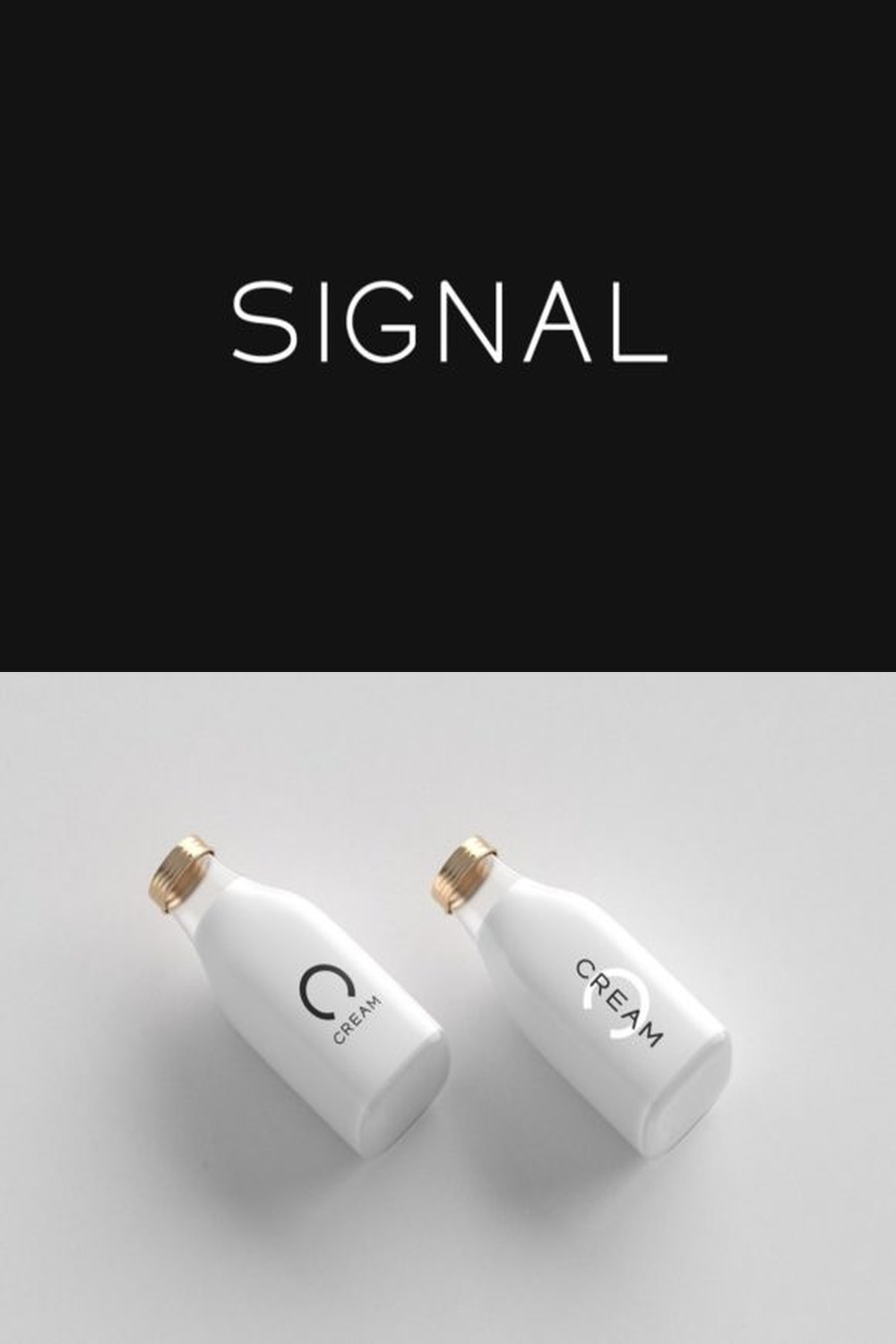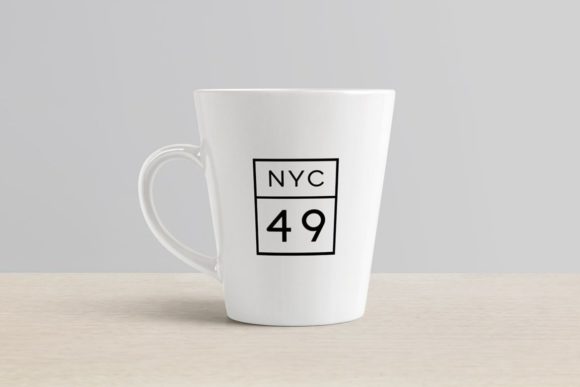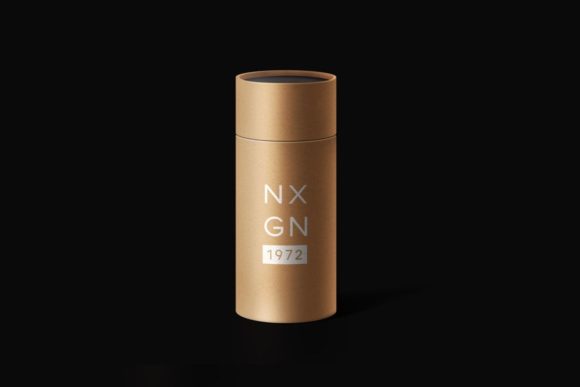
Signal Font: A Modern Minimalist Sans Serif for Branding
About the Signal Font
Welcome to the world of Signal Font, a typeface that will inspire your next great project. Signal is a minimal and neat display font. It can easily be matched to an incredibly large set of projects, so add it to your creative ideas and notice how it makes them stand out!